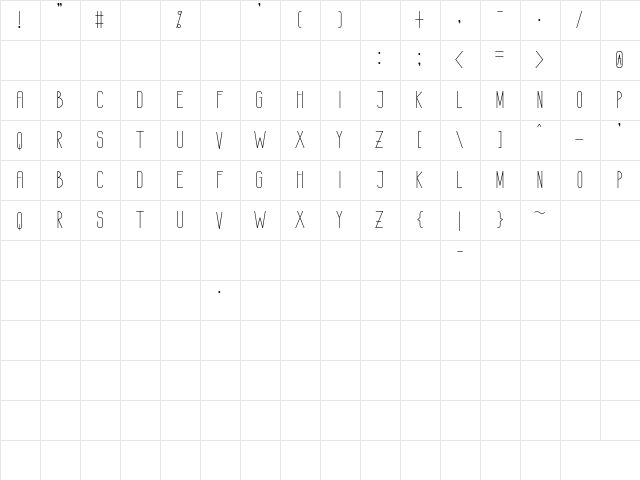
GREEN HOME Regular
| Designer | Diosi J. |
Design Context for GREEN HOME Typeface
GREEN HOME takes a measured approach to typography — its balanced proportions and neutral character make it a reliable workhorse for both digital and print work.